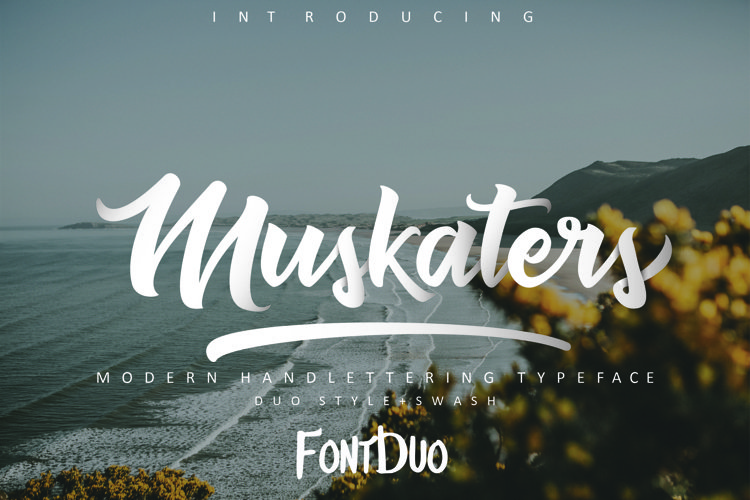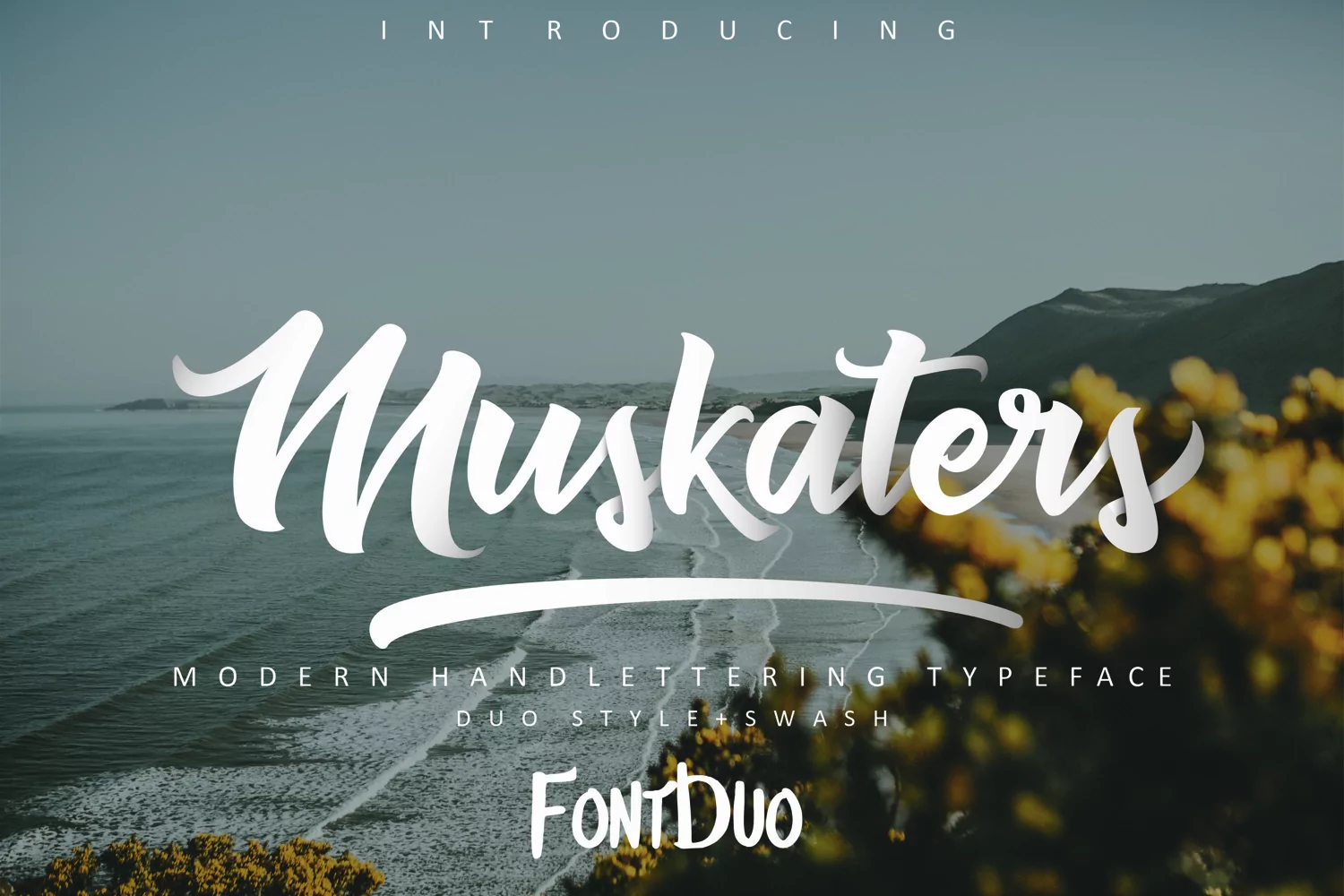
Muskaters is stylish modern handlettering script. Comes with two style regular & italic, not just that it come with premium font bonus "Mergokwe" typeface to stylish your creative project very good for branding projects, product packaging, homeware design,or simply as a stylish text overlay to any background image.